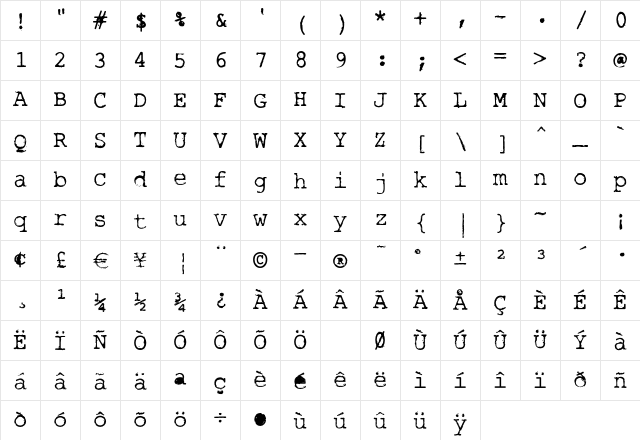
RoughTypewriter Regular Free Font
RoughTypewriter Regular
Foundry: Jason Arthur
Designer: Jason Arthur
Design Context for RoughTypewriter
RoughTypewriter embraces imperfection - its rough, textured character adds raw authenticity to designs that want to feel lived-in and unconventional.
Pro Tip: Use RoughTypewriter at larger sizes where the texture and irregularity of each letterform can be clearly seen - it loses its character at small sizes.